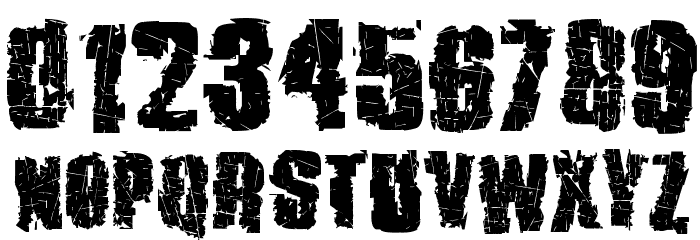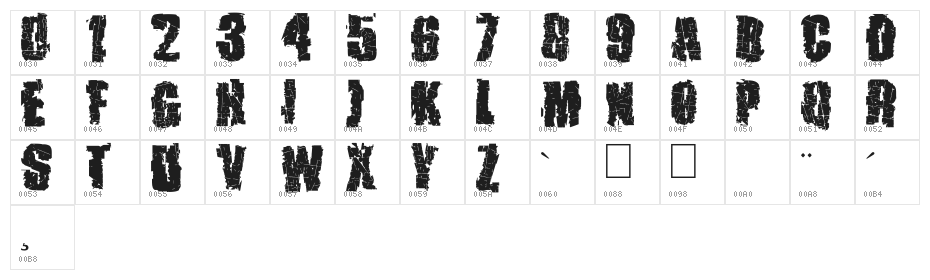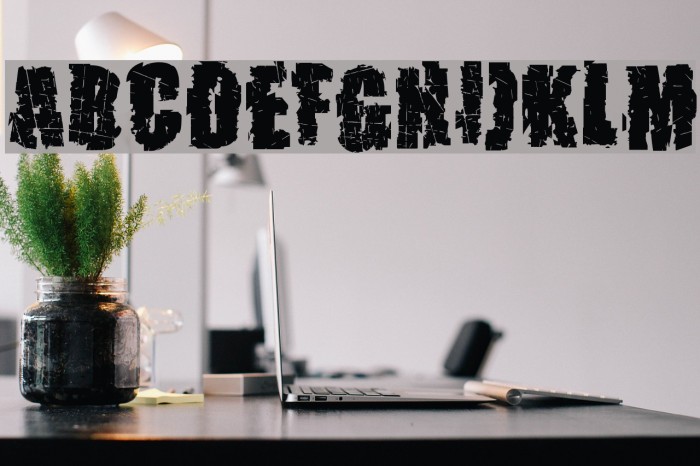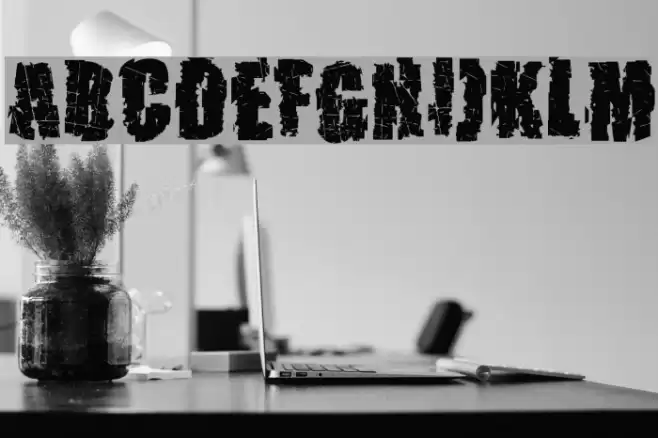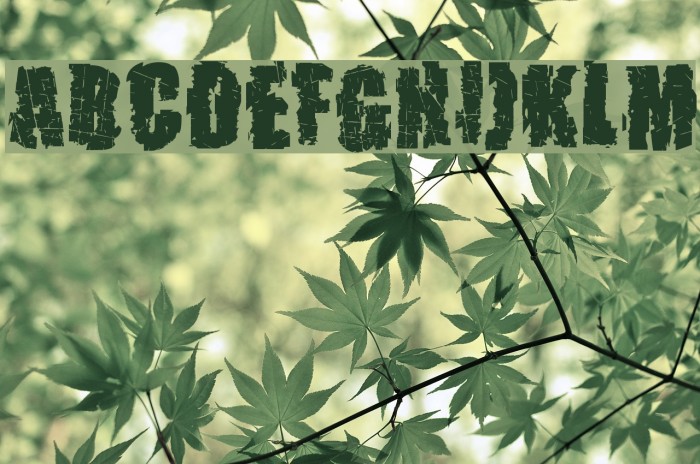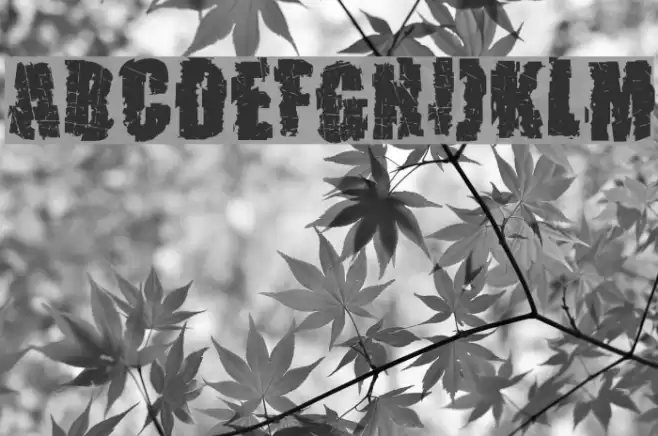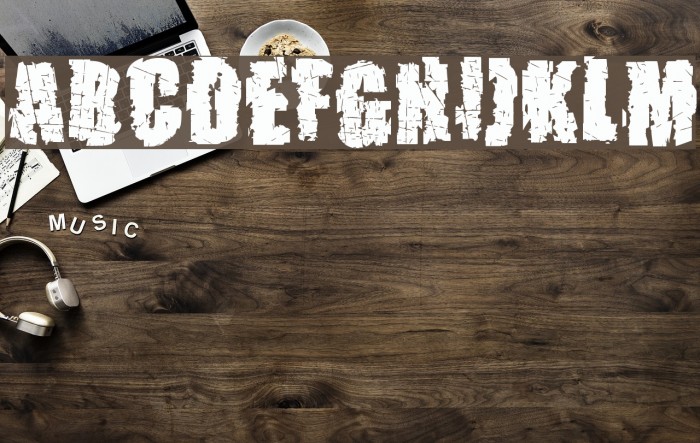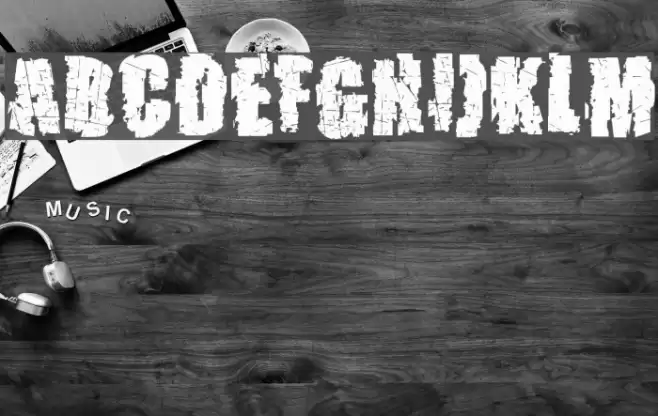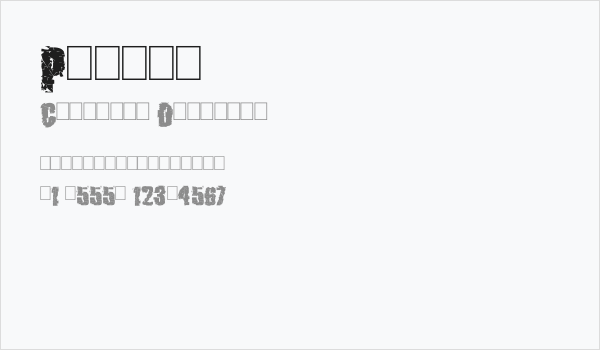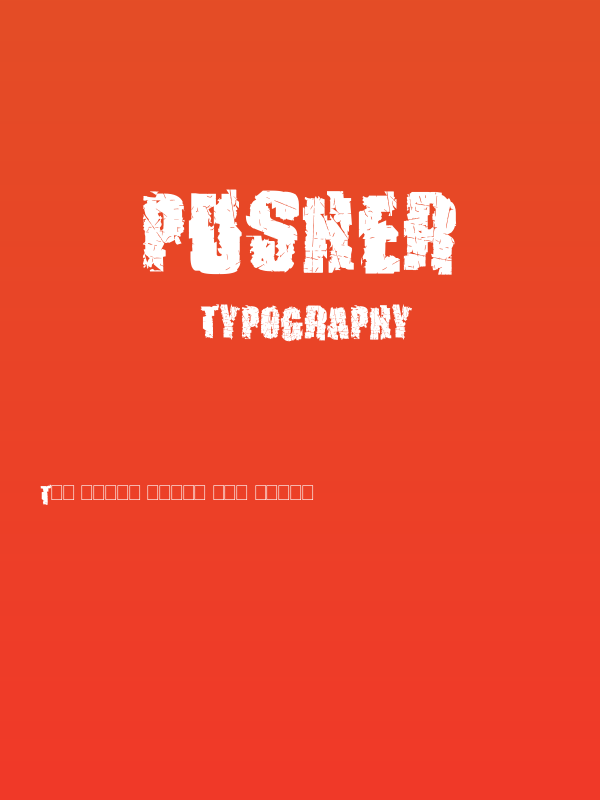
Pusher Font
Pusher Description
This font features a bold and distressed style, with each character appearing as if it has been scratched or eroded. The rough edges and irregular shapes give it a gritty, urban feel, making it stand out with a strong visual impact. The uppercase and lowercase letters, along with numbers and special characters, maintain a consistent distressed look, adding to its cohesive design. This font is ideal for projects that require a rugged, edgy aesthetic.
| Proposed Projects | Perfect for album covers, streetwear branding, event posters, and any design needing a bold, edgy look. |